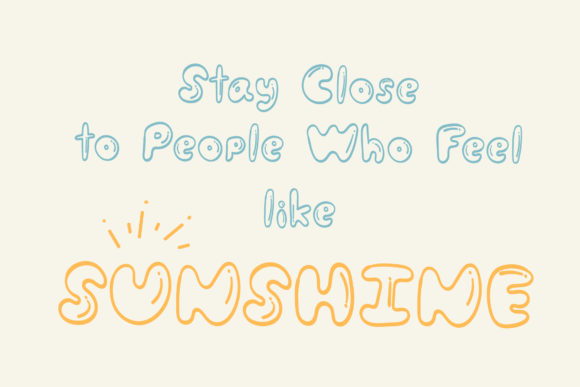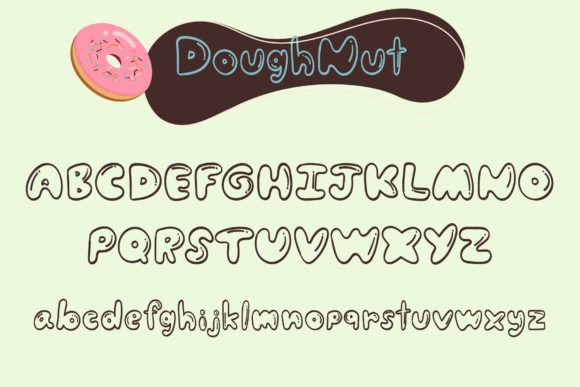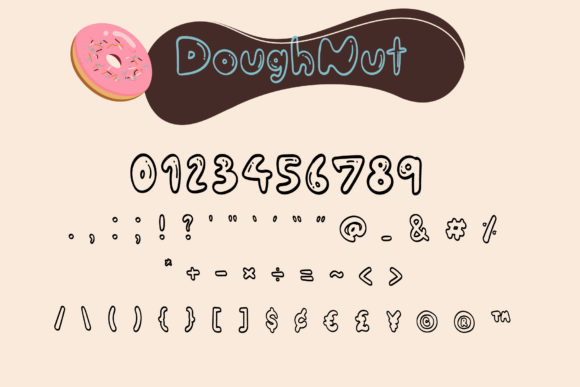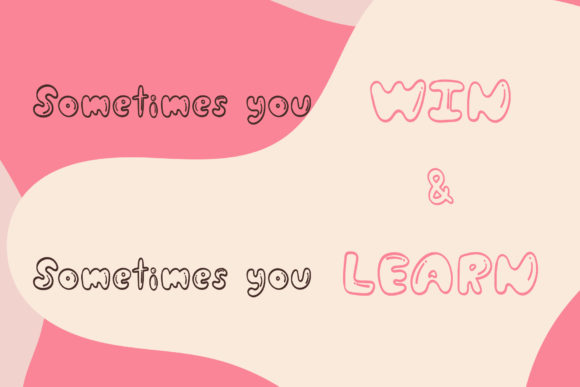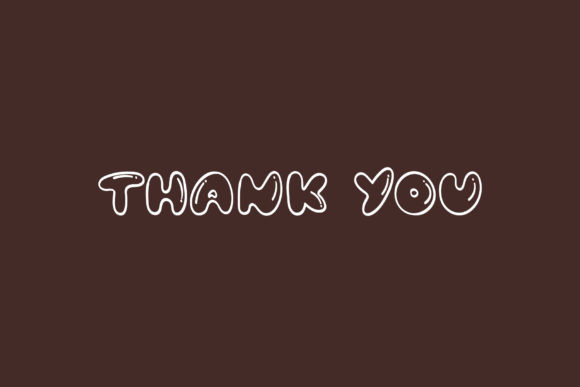
Doughnut Font: The Sweetest Addition to Your Design Toolbox
Are you tired of using the same old fonts in your designs? Look no further than the Doughnut font, a playful and charming handwritten font that’s sure to add a touch of fun and quirkiness to any project. With its unique and authentic style, Doughnut embodies the perfect blend of whimsy and sophistication, making it the perfect addition to your design toolbox.
The Story Behind Doughnut Font
Doughnut font is more than just a font – it’s an expression of creativity and individuality. Its enchanting handwritten style is reminiscent of childhood memories and carefree days, evoking feelings of joy and playfulness. Whether you’re a designer, crafter, or DIY enthusiast, Doughnut font is sure to inspire your next creative project.
What Makes Doughnut Font So Special?
So, what sets Doughnut font apart from other fonts out there? Here are just a few reasons why this font is a standout:
- Unique and Authentic Style: Doughnut font boasts a one-of-a-kind, handwritten style that’s both quirky and charming.
- Highly Versatile: Whether you’re designing a logo, crafting a social media post, or creating a DIY project, Doughnut font is the perfect choice.
- Easy to Read: Despite its playful style, Doughnut font is surprisingly easy to read, making it perfect for both digital and print applications.
- Perfect for Branding: With its fun and carefree vibe, Doughnut font is ideal for brands looking to add a touch of personality to their marketing materials.
How to Use Doughnut Font in Your Designs
Ready to add Doughnut font to your design arsenal? Here are a few ideas to get you started:
- Logos and Branding: Use Doughnut font to create a unique and memorable logo that showcases your brand’s personality.
- Social Media Graphics: Add a touch of fun and whimsy to your social media posts with Doughnut font.
- DIY Projects: Use Doughnut font to add a personal touch to your DIY projects, such as handmade cards, invitations, and scrapbooking.
- Web Design: Add Doughnut font to your website for a playful and eye-catching design element.
Tips and Tricks for Working with Doughnut Font
Here are a few tips and tricks to keep in mind when working with Doughnut font:
- Experiment with Colors: Doughnut font looks great in a variety of colors, so don’t be afraid to experiment and find the perfect hue for your design.
- Mix and Match: Combine Doughnut font with other fonts for a unique and interesting design element.
- Play with Size: Doughnut font looks great in a variety of sizes, from large and bold to small and delicate.
In conclusion, Doughnut font is a sweet and charming addition to any design toolbox. With its unique and authentic style, highly versatile design, and ease of use, Doughnut font is sure to inspire your next creative project. Whether you’re a designer, crafter, or DIY enthusiast, Doughnut font is the perfect choice for adding a touch of fun and quirkiness to your designs. So why wait? Download Doughnut font today and start creating your own sweet designs!